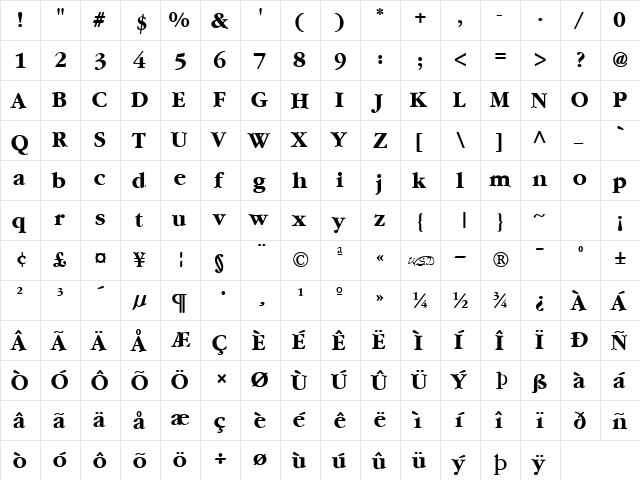
Garnet fed
Design Context for Garnet Typeface
Garnet is a composed and adaptable typeface that performs quietly and consistently across a wide range of design contexts.